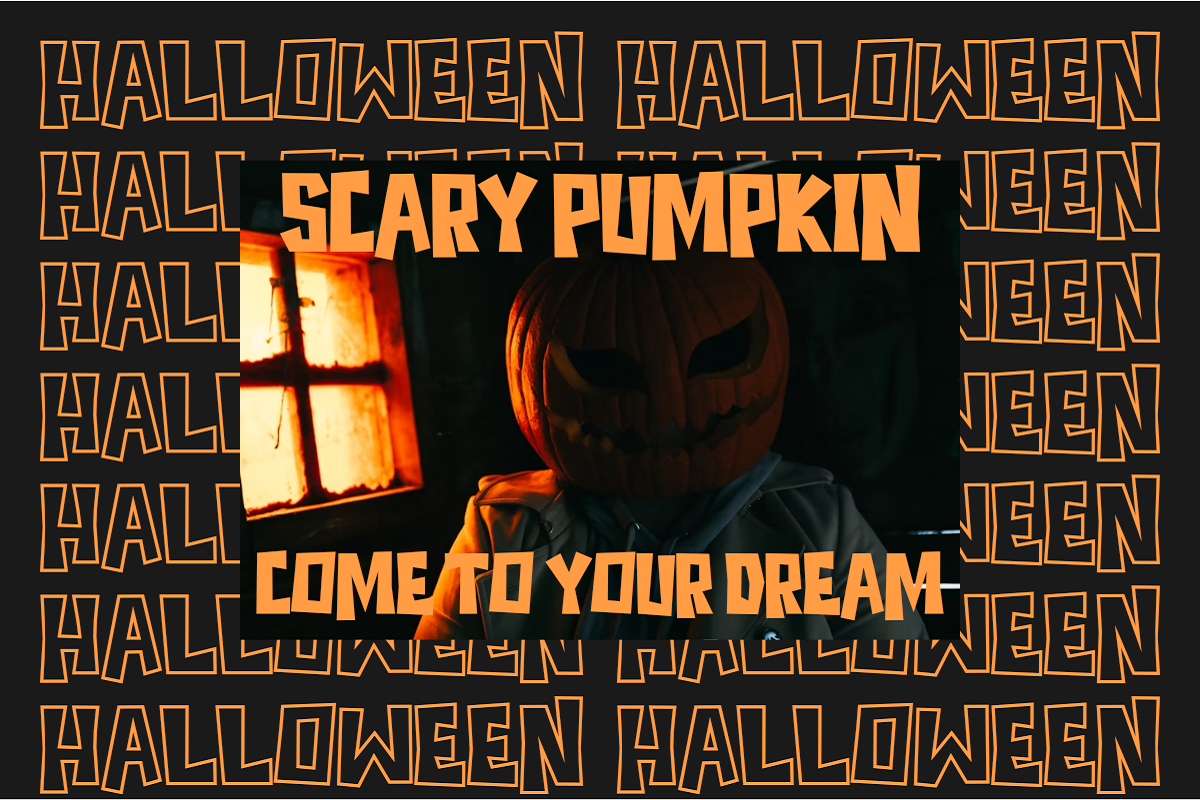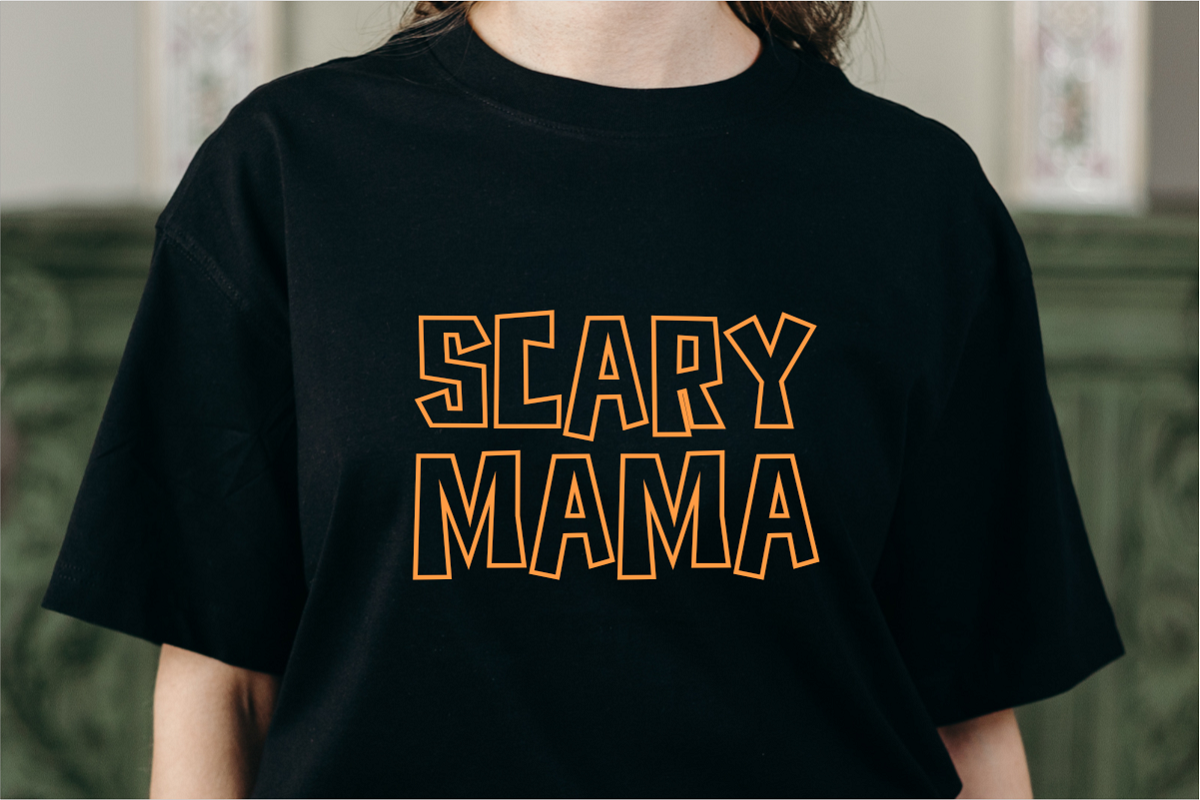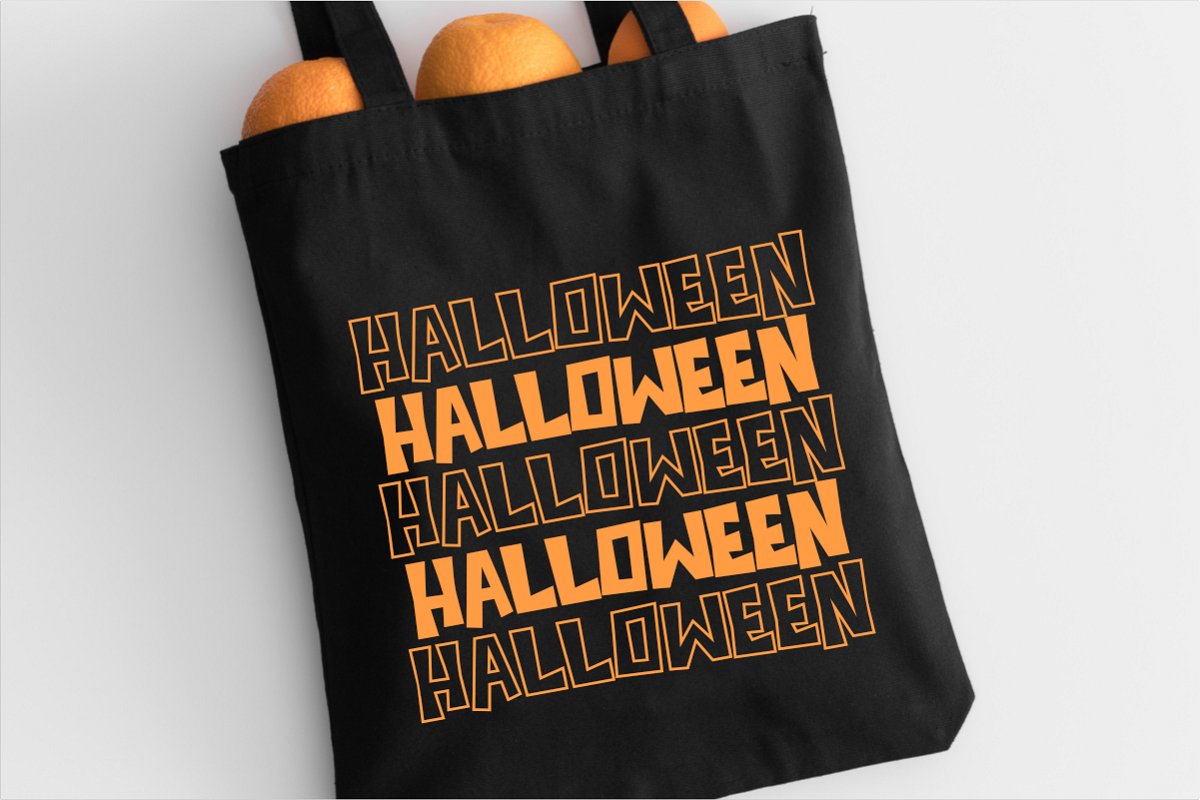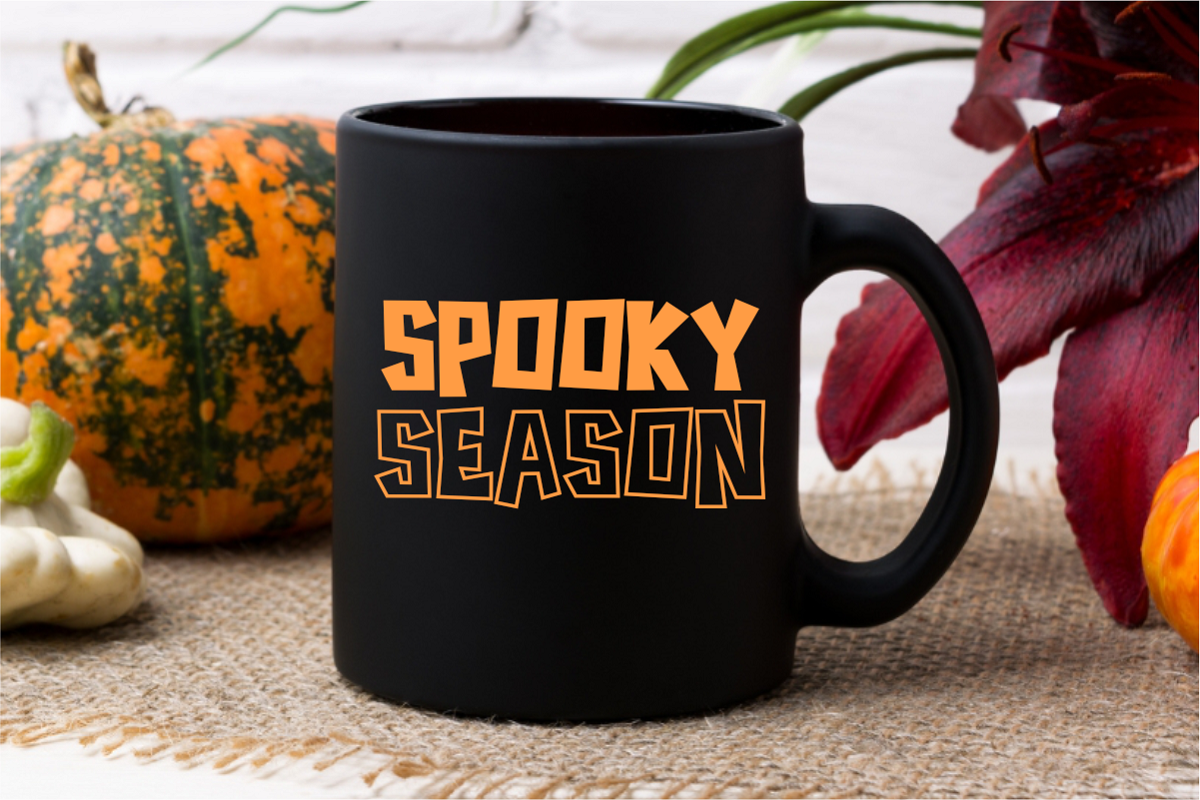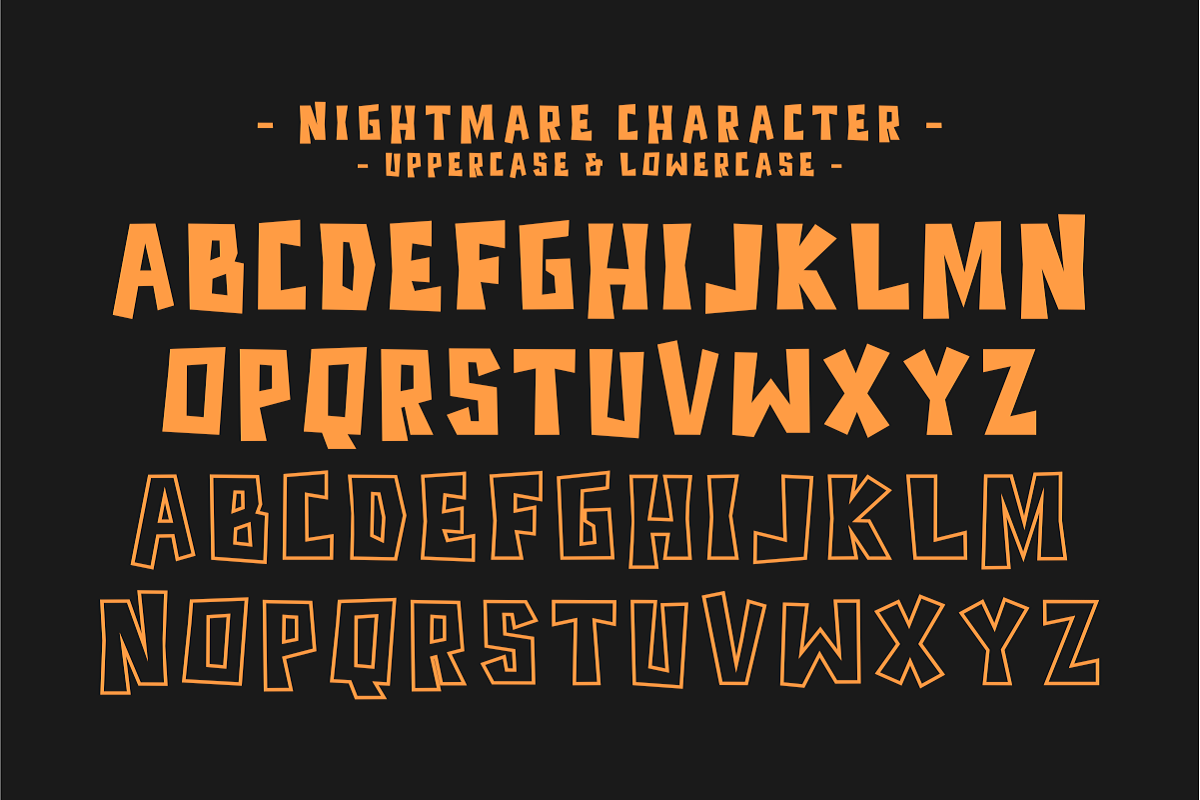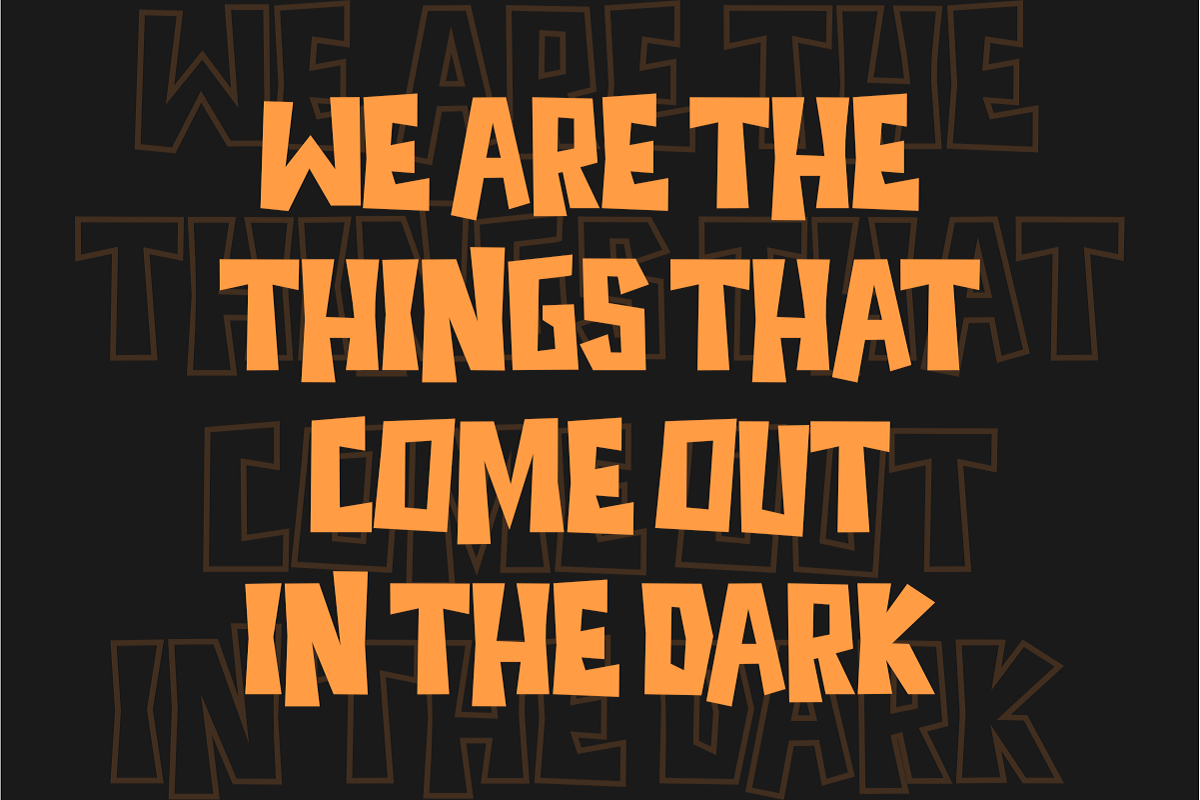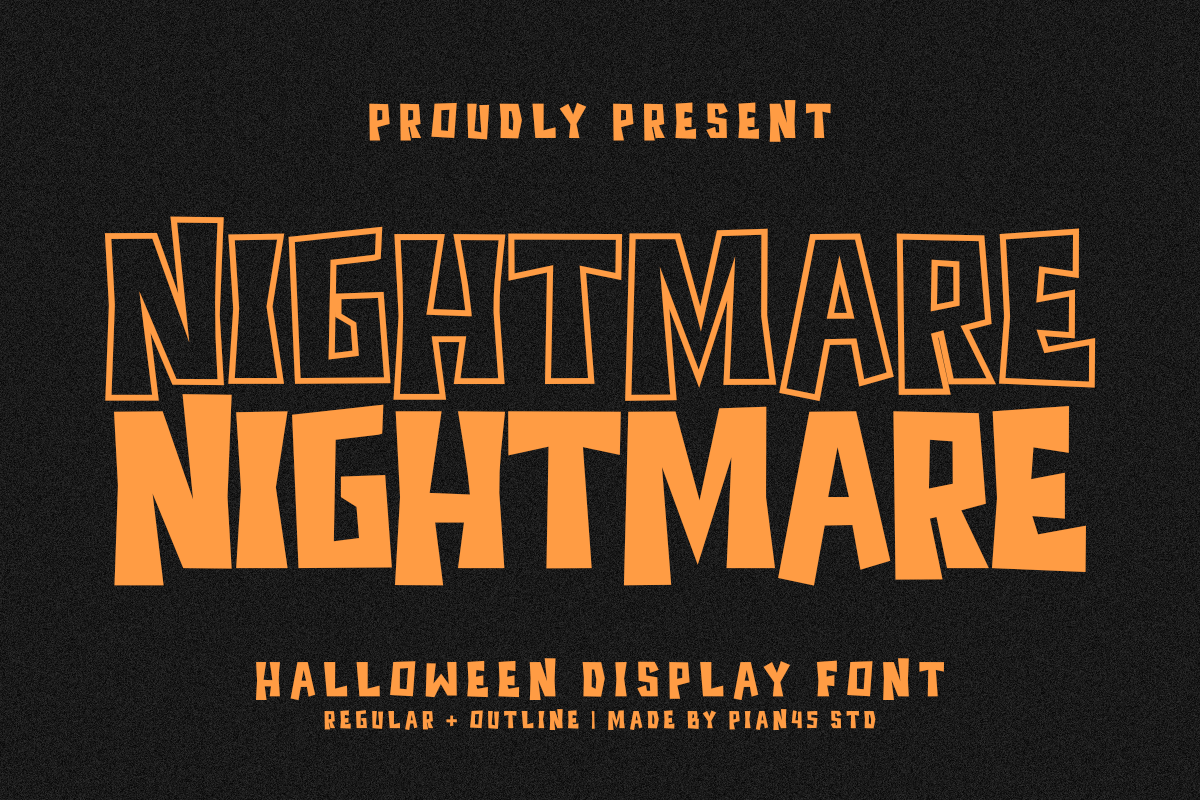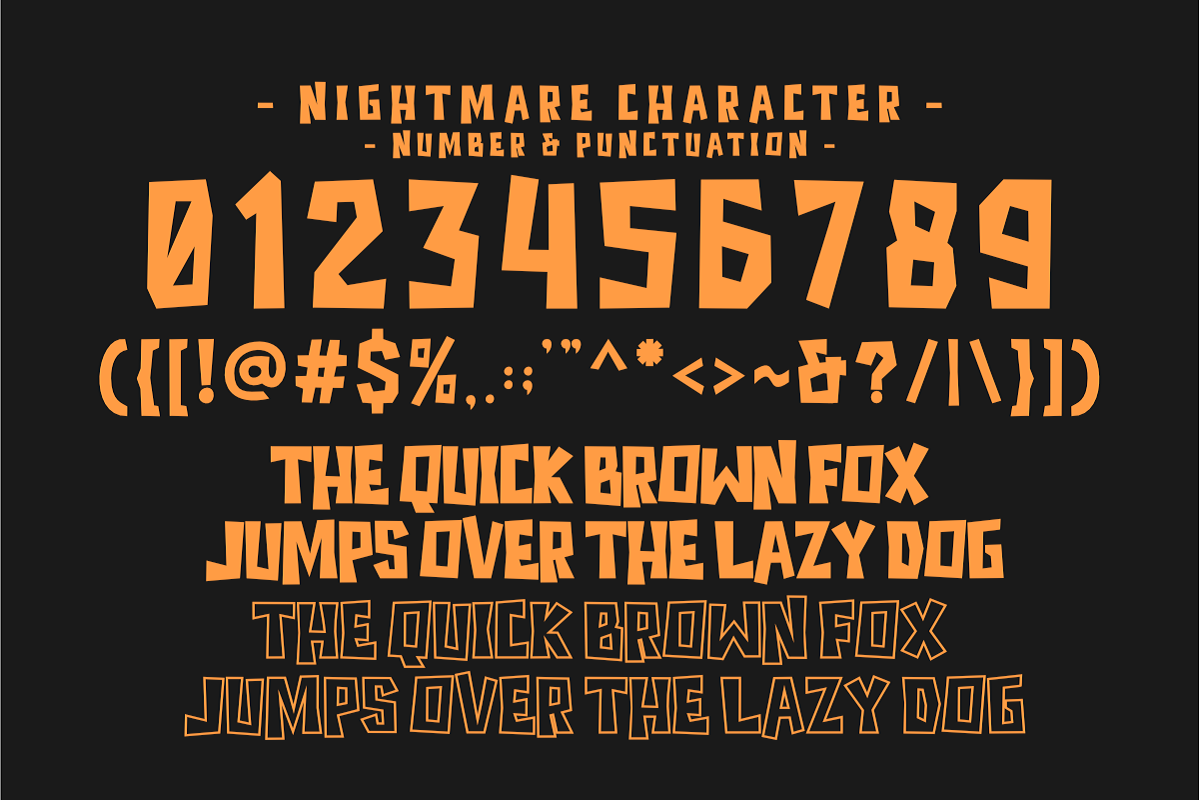
Nightmare - Halloween Display Font
Nightmare is a bold quirky Halloween Display Font designed to bring a playful yet spooky vibe to your creative projects. This all-caps typeface features intentionally irregular and wobbly edges, giving it a distinctive, hand-drawn monster aesthetic that’s perfect for eye-catching headlines. With both Regular and Outline styles included, Nightmare offers great versatility for dynamic, layered designs. It’s the ultimate font for Halloween flyers, spooky party invitations, merchandise, and any branding that needs to make a bold, eerie statement.